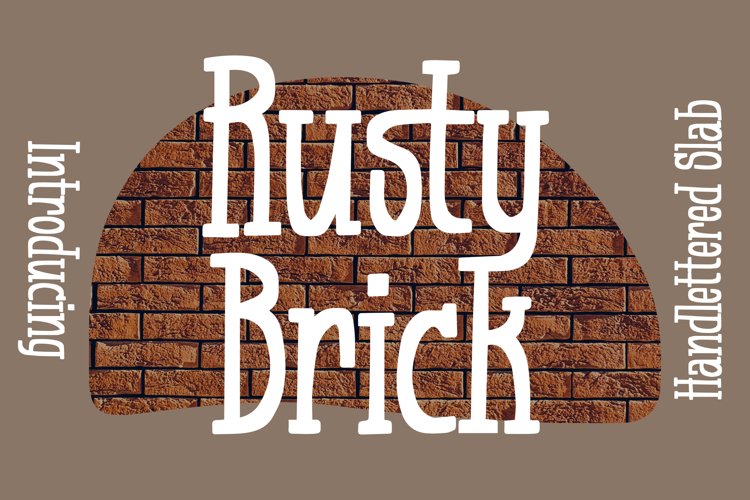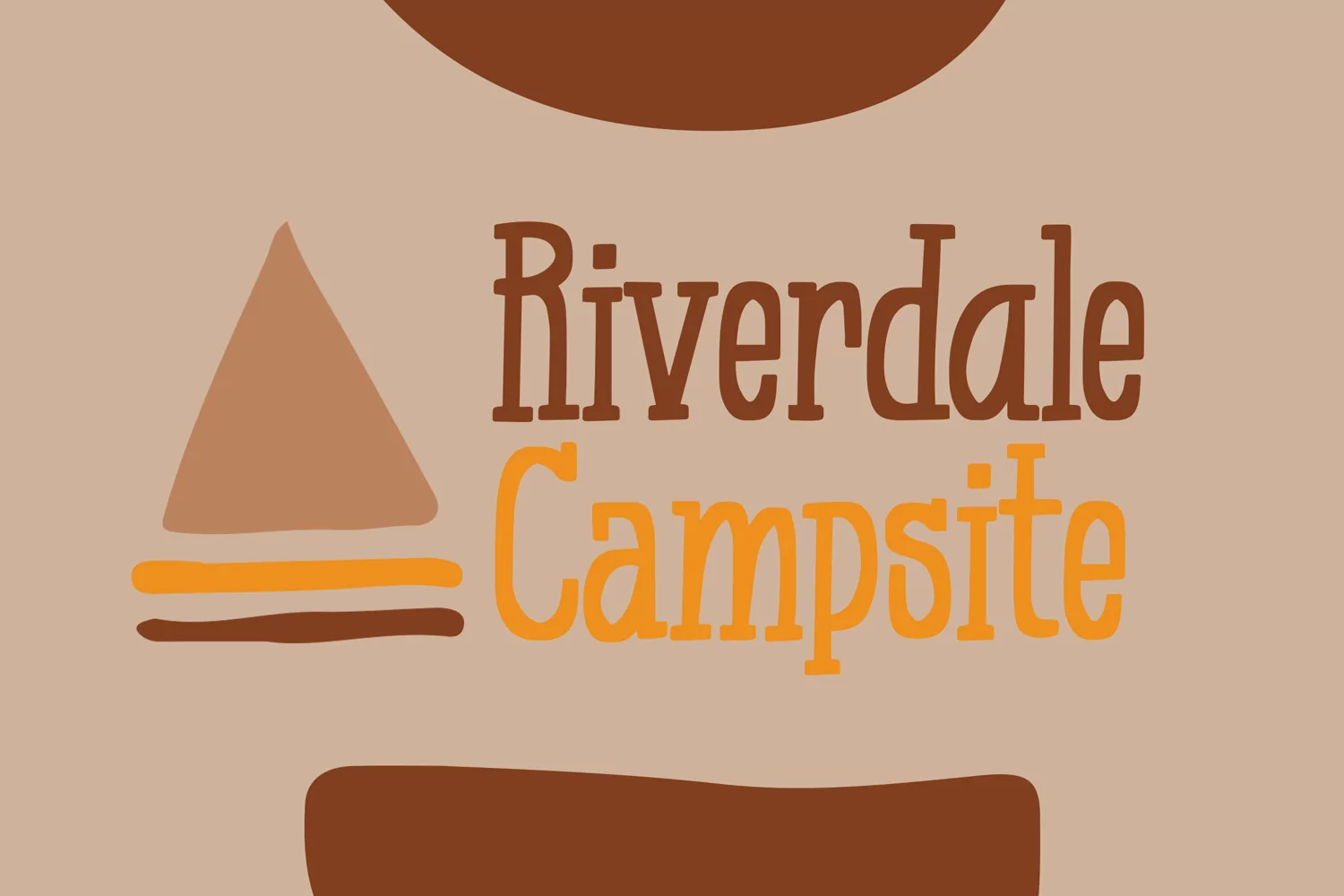
Rusty Brick - Handlettered Slab Font that contain lowercase, uppercase, symbol, and also support multi language. There’s a lot ligatures in this font. This Font also comes with ligatures, alternates and many more. this font suitable for fashion, branding, catalog and other design what you want.